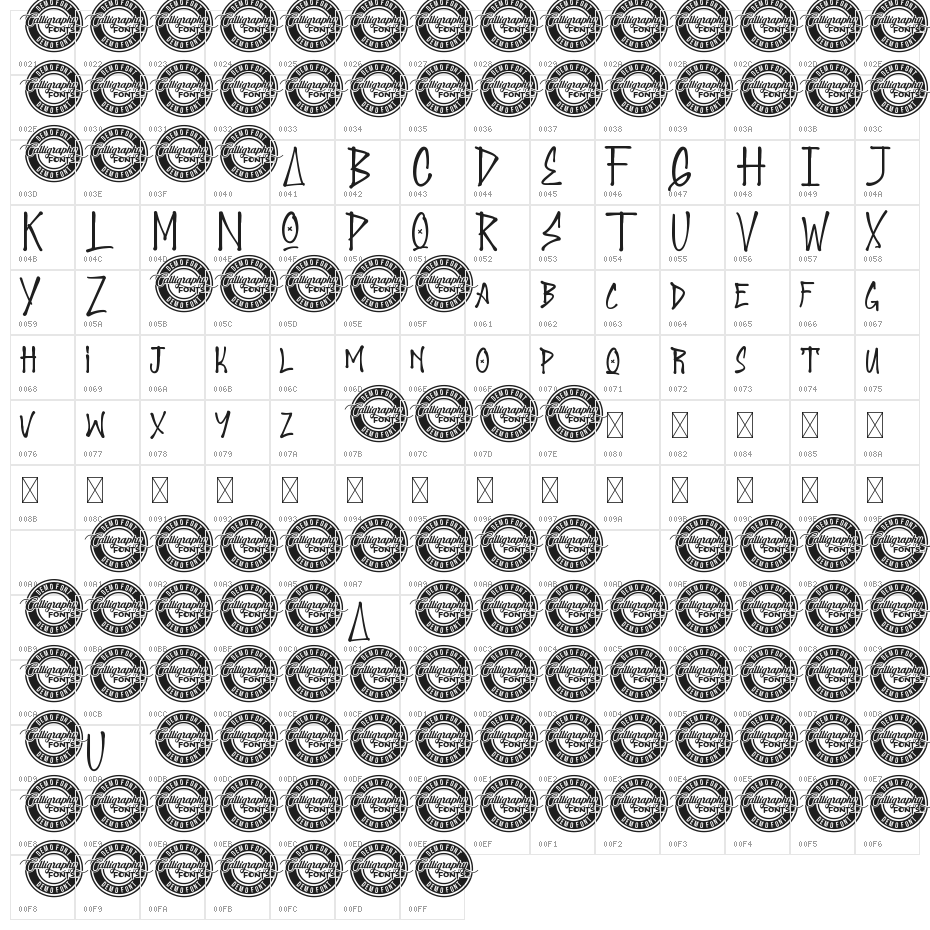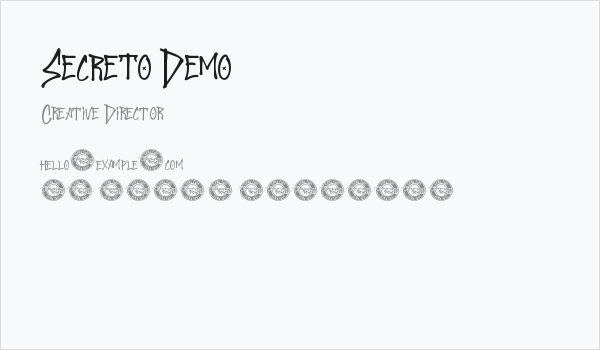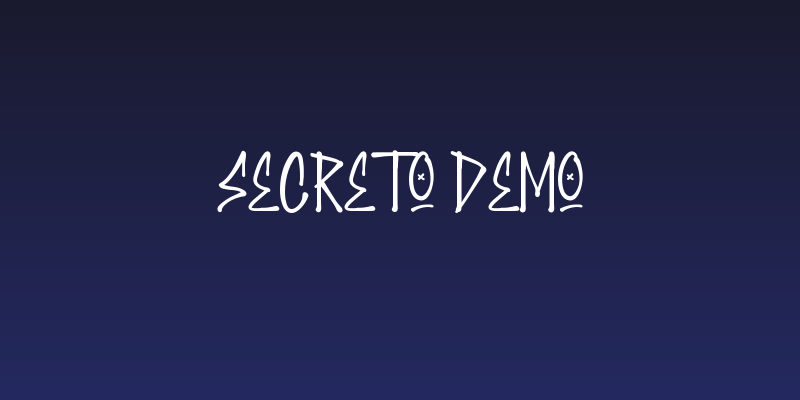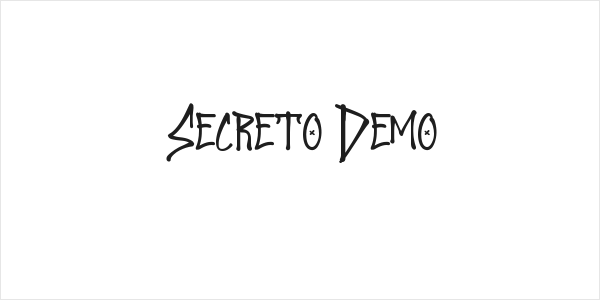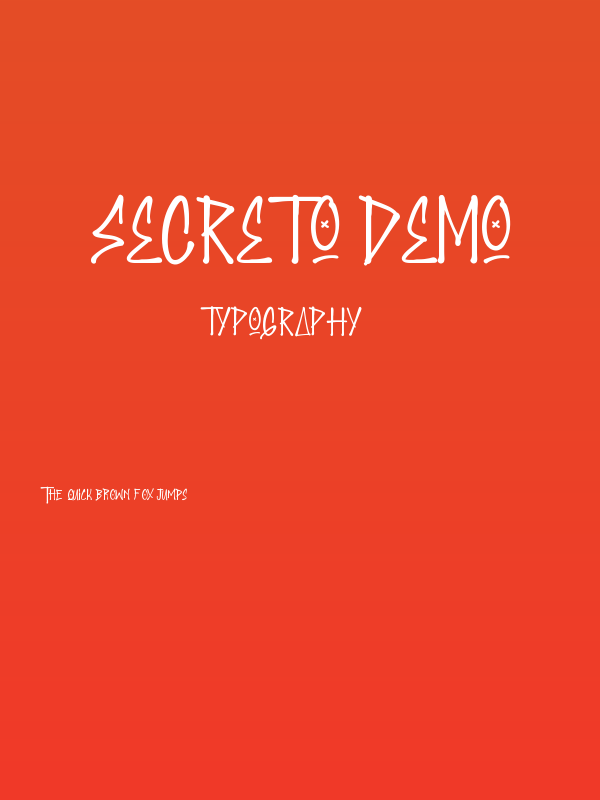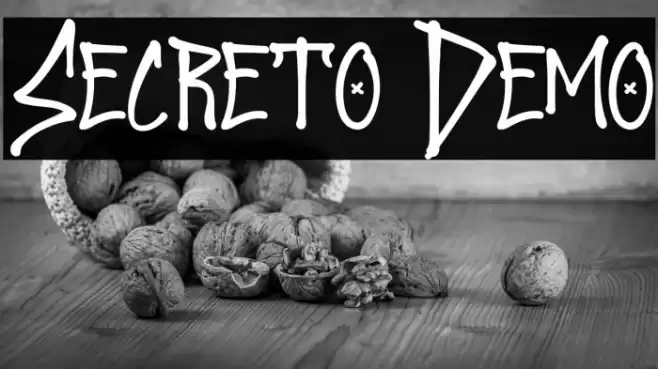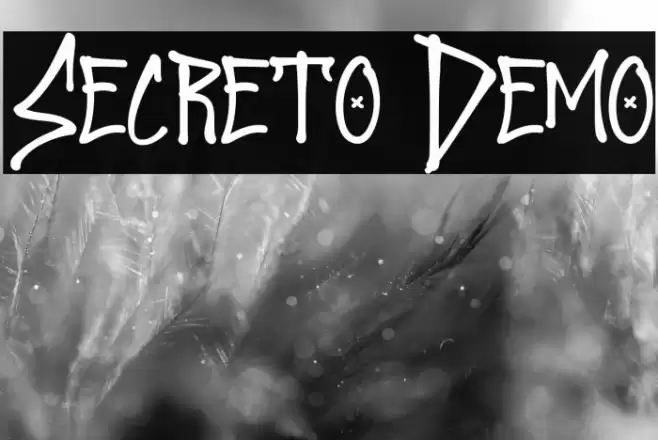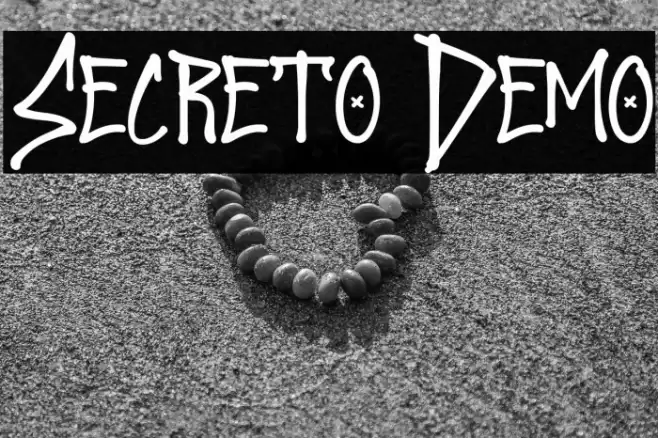
Secreto Demo Font
Secreto Demo Description
This font features a unique and artistic style with a handwritten appearance. The uppercase letters are characterized by their tall, narrow forms and slightly irregular strokes, giving them a dynamic and expressive look. The lowercase letters maintain a similar style, with some characters featuring distinctive loops and curves that add to the font's charm. The numbers are consistent with the overall design, offering a playful yet legible appearance. Special characters are included, each crafted with the same attention to detail and creativity. This font's overall aesthetic is both modern and whimsical, making it suitable for a variety of creative projects.
| Use Case | Logos, Headlines, Creative projects |
| Proposed Projects | Ideal for creative projects such as invitations, greeting cards, posters, and branding materials that require a personal and artistic touch. |